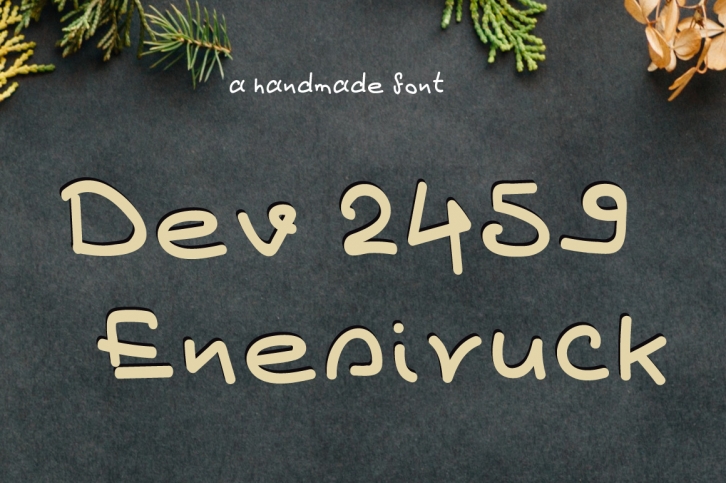
Dev2459 Enesiruck is a beautiful font that was designed by Design 2 Last. It's a great choice for designers and creatives who need such a font. It was released on April 8, 2019 and the file size is 18.15 MB. Dev2459 Enesiruck may give a more youthful, expressive and casual look to your project. It is a very beautiful, refined, elegant, and high-quality font.